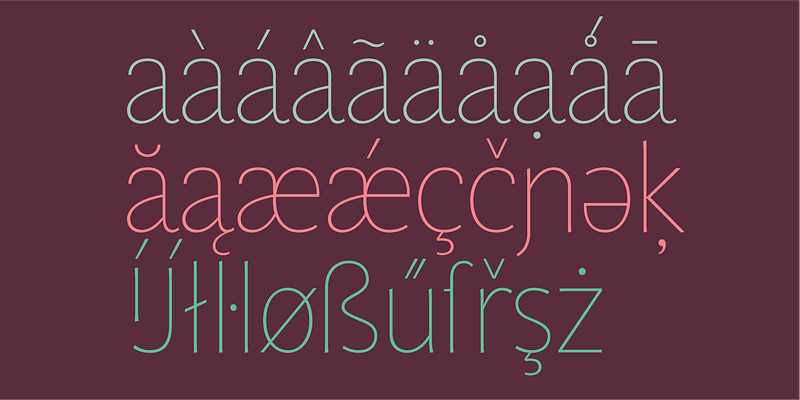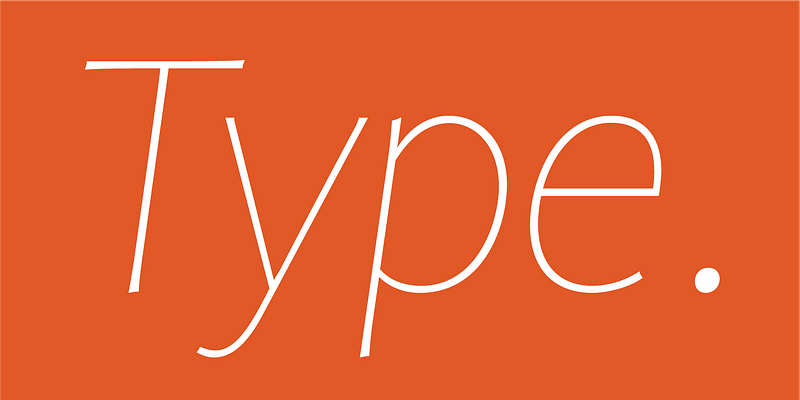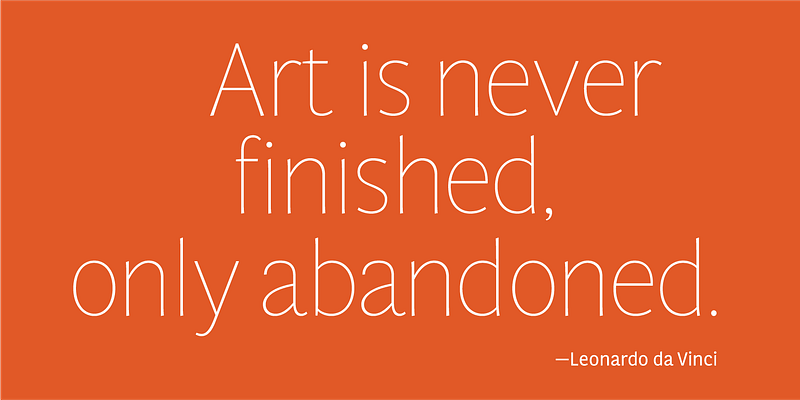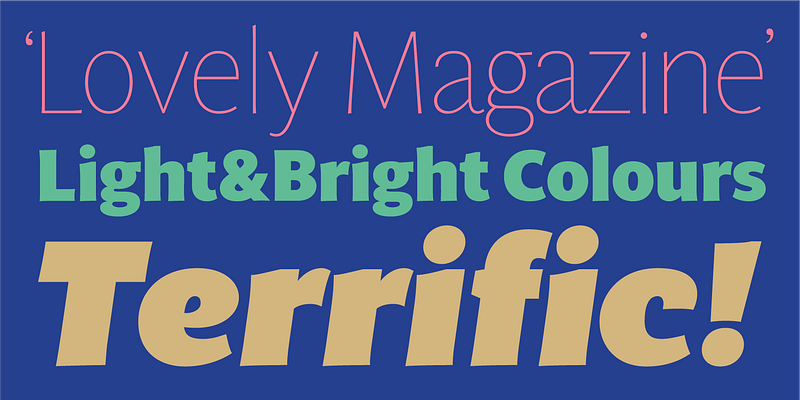
Laura Meseguer’s first extensive type family, Multi was originally commissioned in 2011 by a publisher of Dutch regional newspapers. The aim in developing Multi was to match the serif typefaces used for a comprehensive layout overhaul project supervised by editorial art director Luis Mendo. Keywords provided by the client were unequivocal: warm, dynamic, optimistic, friendly, and human. Meseguer initially designed two series: Multi Text, with two weights in roman and italic, and Multi Headline, with six roman styles. Since that commission, Meseguer has considerably expanded the character set and family. Multi Text now comprises three weights (roman and italic), and Multi Headline was renamed Multi Display (seven weights in roman and italic). Like most Meseguer typefaces, Multi is bursting with vitality. Its distinctive phrasing lies between humanist and glyphic, exploring uncharted territory. The design is pragmatic, yet not rigid, and gently graced with tiny incised touches; Type-Ø-Tones 2016